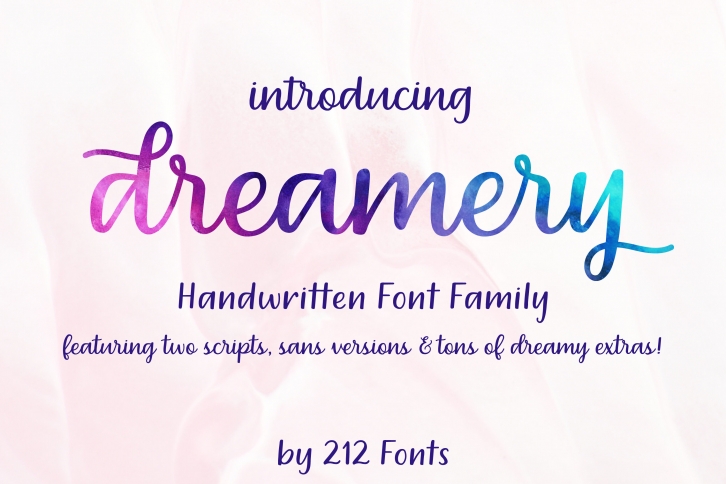
Dreamery Script and Sans Handwritten Feminine Font Trio Download
Dreamery is a beautiful, handwritten font trio that includes two script versions (one "loopy" and one "neat"), a sans version as well as many ligatures and alternates with initial and end swashes. So much dreamy goodness! Over 1500 total glyphs that are sure to make your project stand out!
Perfect for Wedding invitations, Branding, Logos, Greeting Cards and Quotes.